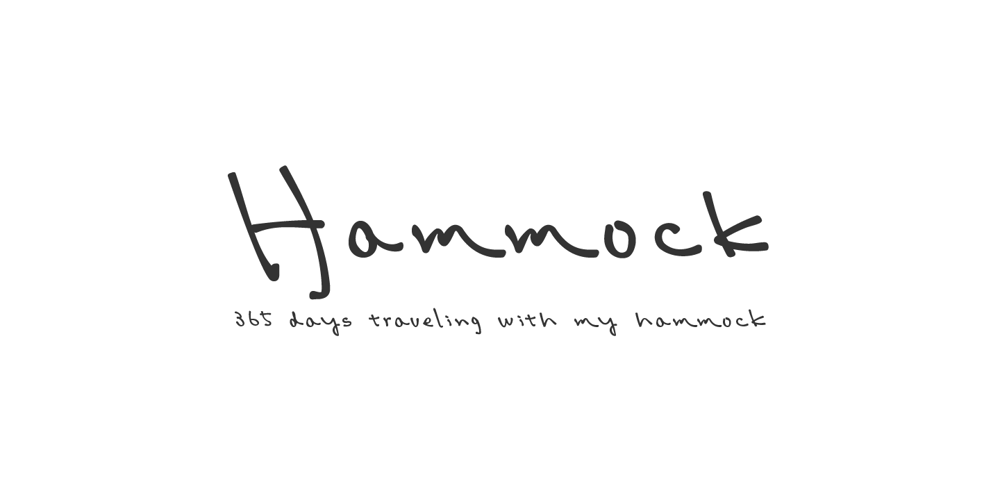
Hammock Font Family was designed by Motoki Higa and published by One Fonty Day. Hammock contains 1 styles and family package options. Hammock is a chilled and simple handwritten typeface. Having the combination of the large capital letters and the small lowercase enable you to play with the font uniquely and flexibly. Also, its left-slanted letters give a bit of special look to the typeface. Most of the european languages are supported.